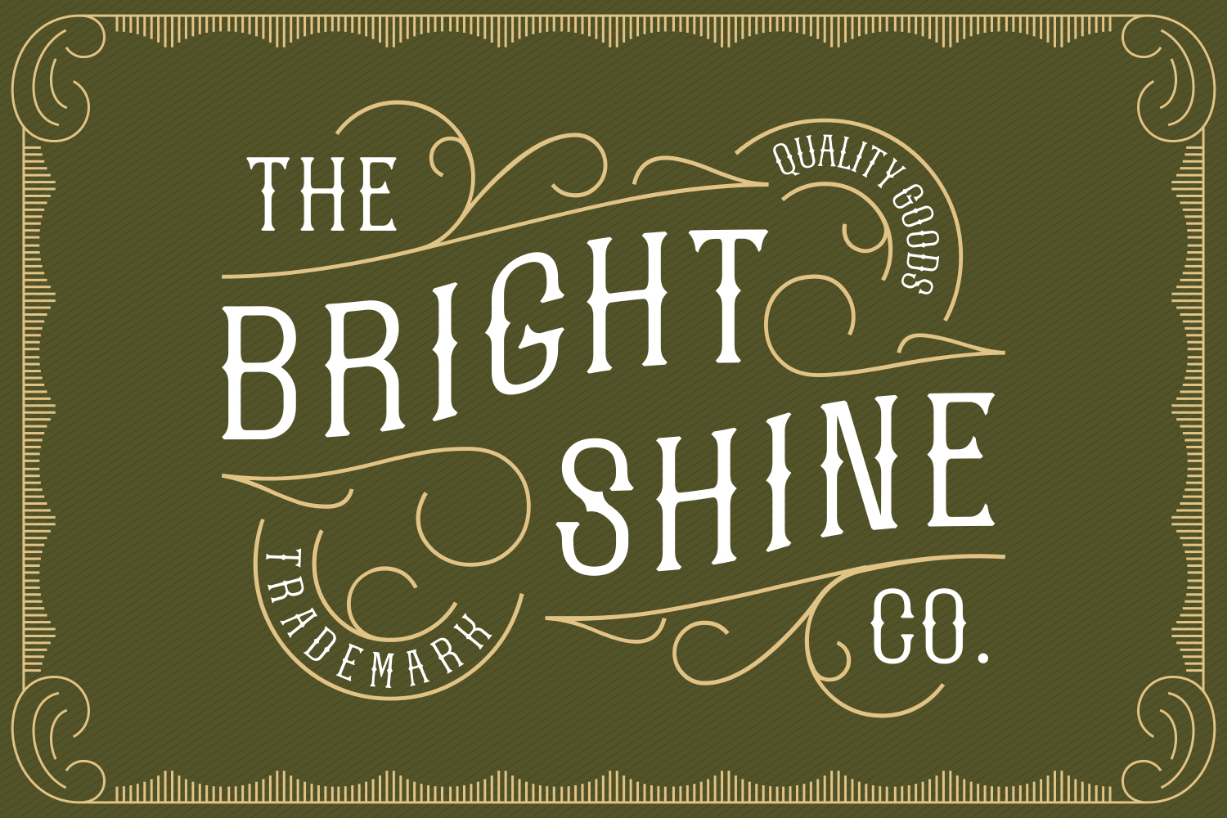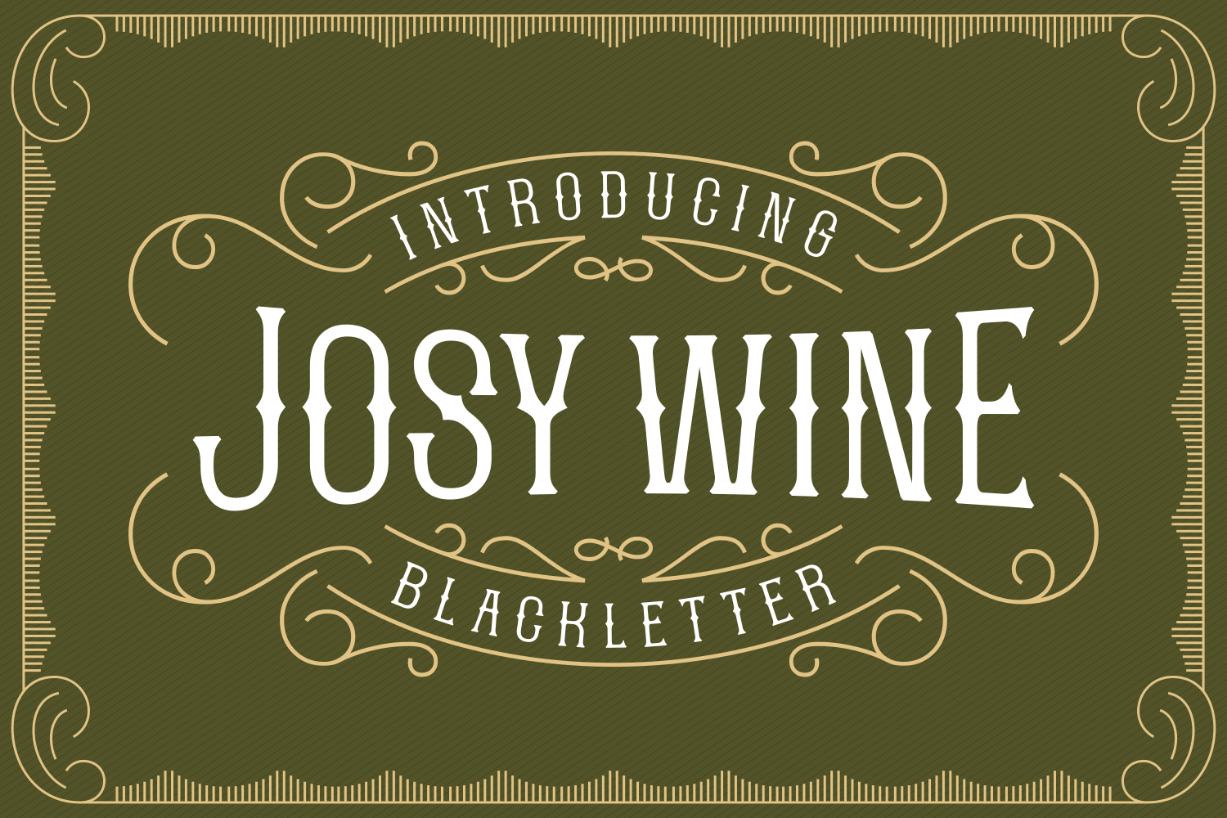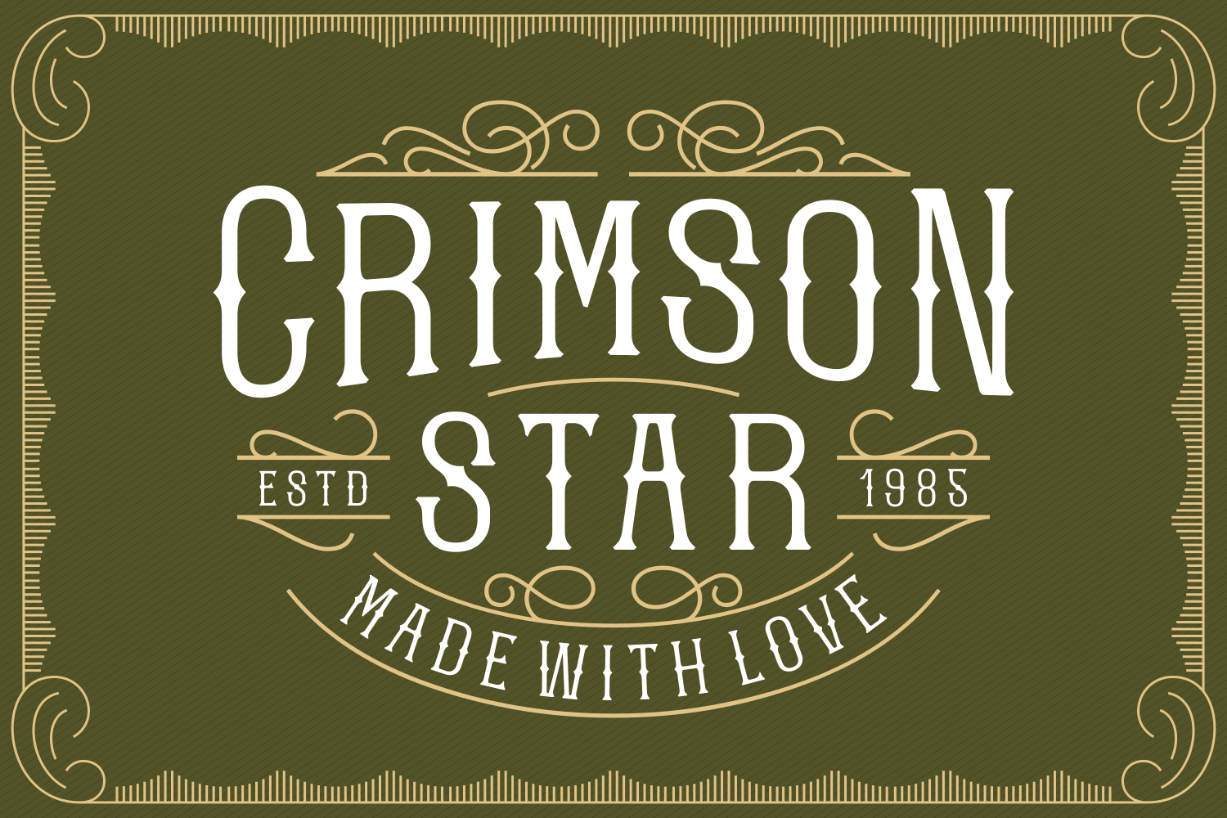
Josy Wine Font
About Josy Wine Font
Josy Wine is a playful and bold blackletter font with an undeniably vintage charm. It will turn any creative project into a one-of-a-kind work!